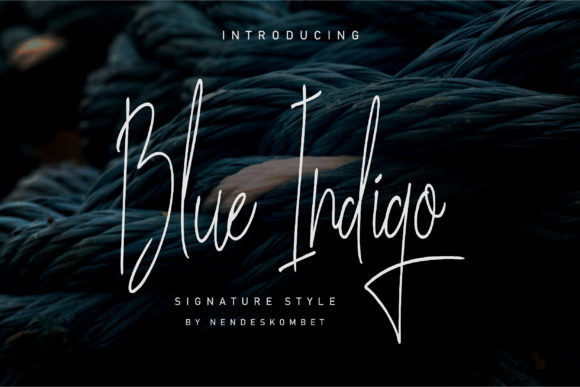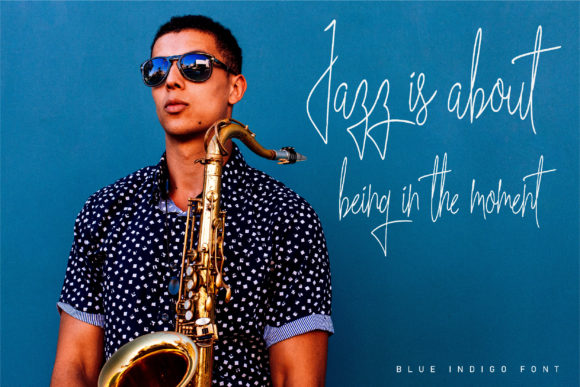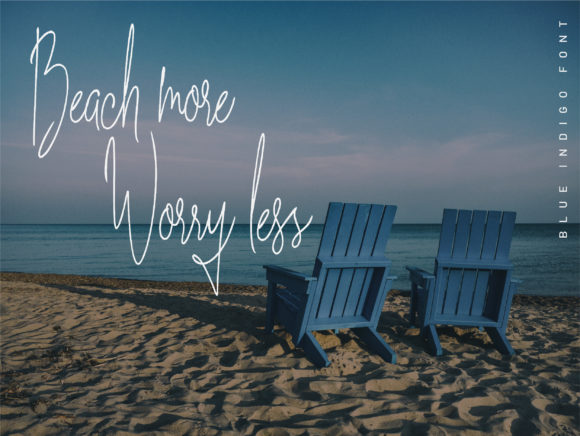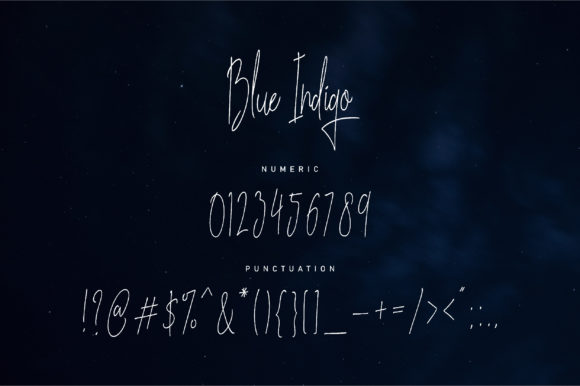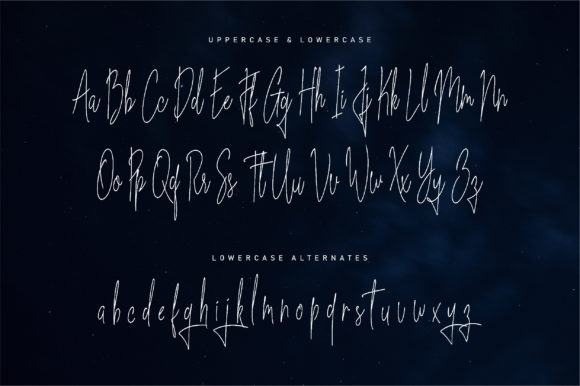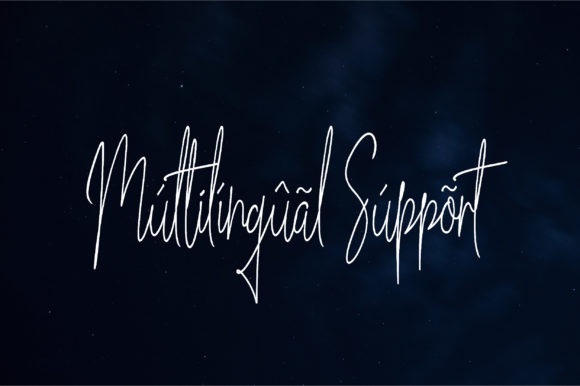
Blue Indigo Font
About Blue Indigo Font
Blue Indigo is an amazing and light handwritten font with a beautiful feel. Use it to add a unique and authentic spark to any design project!